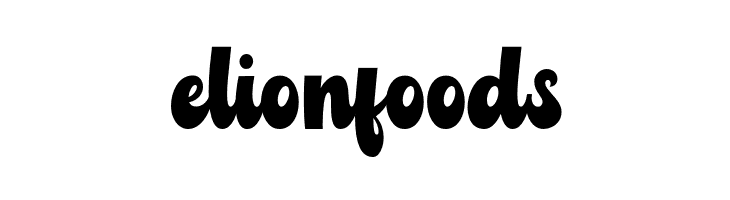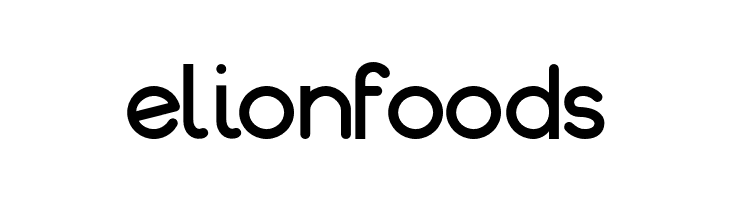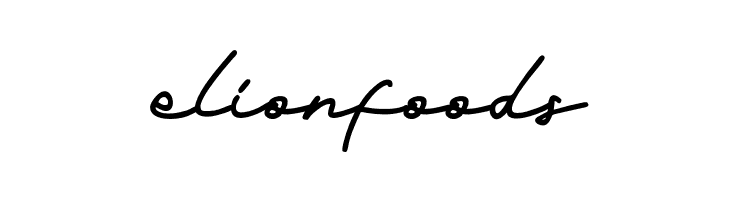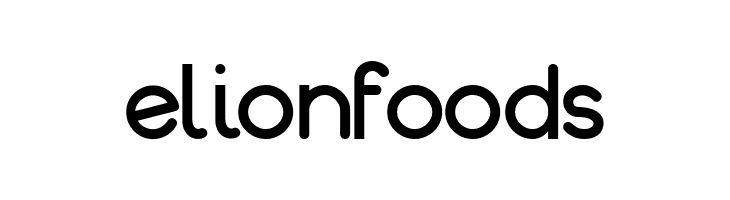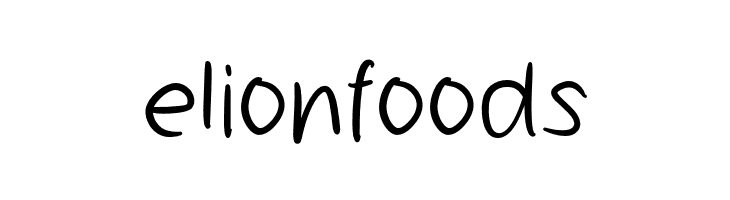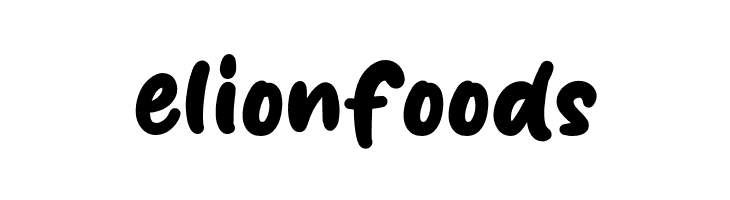
A fluid, cursive font with a natural handwritten style.
A fluid and elegant handwritten script font with smooth, connected letters.
A modern, rounded typeface with uniform stroke width and friendly appearance.
A modern, rounded sans-serif font with excellent readability and a friendly appearance.
A playful, handwritten font with tall, narrow letters and a modern feel.
A bold, playful handwritten font with rounded edges and a consistent weight.
A playful, casual handwritten font with smooth, rounded edges and consistent stroke thickness.
A bold, playful script font with rounded strokes and smooth curves.
A bold, playful script font with flowing, connected letters and decorative uppercase characters.
A decorative font with intricate swirls and loops, offering a vintage yet modern aesthetic.